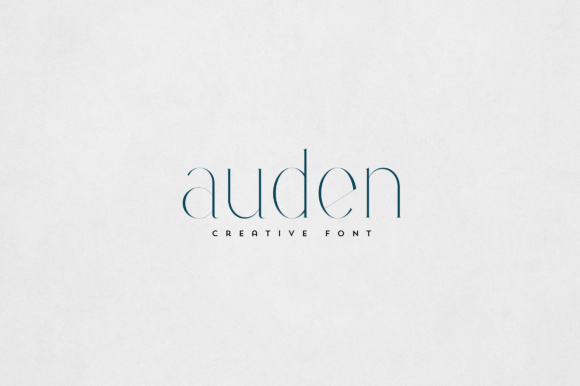
Enter the Auden Font, a sophisticated and adaptable typeface designed to breathe life into your typography. Whether you’re crafting a logo, branding, or simply adding flair to a text overlay, Auden Font is the perfect companion for designers seeking to make a lasting impression. Its elegance and versatility make it an invaluable asset for any creative project, from product packaging to magazine headers.
With the Auden Font, you’ll unlock a world of possibilities and discover a new dimension of design excellence.
Auden Font Key Features
- Font Family: Auden is a sans-serif font family designed by Christian Schwartz.
- Unique Characteristics: Auden’s distinctive features include its clean and modern design, with subtle rounded edges and a well-balanced x-height.
- Font Weight and Style Options: Available in multiple weights (e.g., Light, Regular, Medium, Bold, Black) and styles (e.g., Italic, Oblique) to suit various design needs.
Auden Font Review
As a designer, I’ve had the chance to work with the Auden font, and I must say it’s a unique and stylish choice. ✨ One of the things that stands out is its elegant and refined aesthetic, making it perfect for high-end branding and luxury products. The font’s subtle flair and curvaceous lines evoke a sense of sophistication and refinement.
Here are some of the key features that I love about Auden: ✨
- Unique and stylish aesthetic
- Elegant and refined look
- Perfect for high-end branding and luxury products
- Great for use in logos, titles, and headings
- May not be the best choice for body text due to its formal nature
- Can be difficult to read at smaller font sizes
- May not be suitable for digital use due to its elegant, print-based design
Overall, I think the Auden font is a great choice for designers who want to create a sense of luxury and sophistication in their designs. While it may have some limitations, its unique aesthetic and refined look make it a great addition to any designer’s toolkit.
Getting the Most Out of Auden Font
For the best results, use the Auden font for titles and headings.
Experiment with different font sizes and styles to create visual hierarchy.
Pair the Auden font with a clean, sans-serif font for body text.
The Auden font is ideal for:
- Book titles and covers.
- Marketing materials and brochures.
- Branding and logos.
Alternatives to Auden Font for Designers
Playfair Display is an elegant, high-end serif font ideal for luxury brands, fashion, and high-end products. It features a unique combination of classic and modern elements, making it perfect for creating a sophisticated and refined atmosphere.
Comparison to Auden Font: While both fonts have a similar luxurious feel, Playfair Display has a more dramatic and ornate appearance, whereas Auden Font is more understated and classic. Use Playfair Display when you need to add a touch of opulence to your design.
Merriweather is a classic serif font that exudes a sense of tradition and sophistication. It’s perfect for use in body text, headings, and titles, and works well in a variety of contexts, from corporate to educational.
Comparison to Auden Font: Merriweather has a more traditional and conservative feel compared to Auden Font, which has a slightly more modern and minimalist aesthetic. Use Merriweather when you need a reliable and timeless font for your design.
Didot is a luxurious and elegant serif font that’s perfect for high-end branding, fashion, and luxury goods. It features a unique combination of classic and modern elements, making it perfect for creating a sophisticated and refined atmosphere.
Comparison to Auden Font: While both fonts have a similar luxurious feel, Didot has a more dramatic and ornate appearance, whereas Auden Font is more understated and classic. Use Didot when you need to add a touch of high-end sophistication to your design.